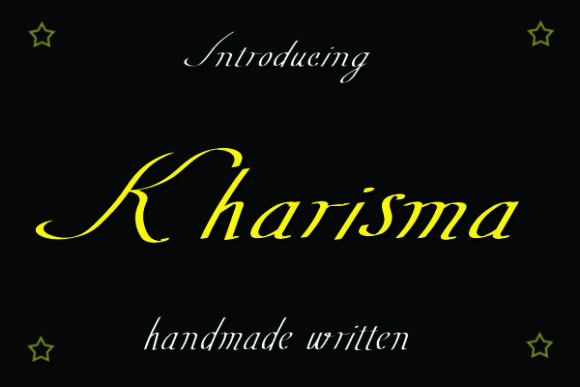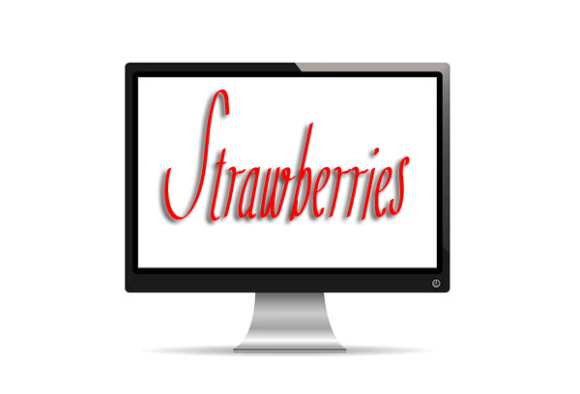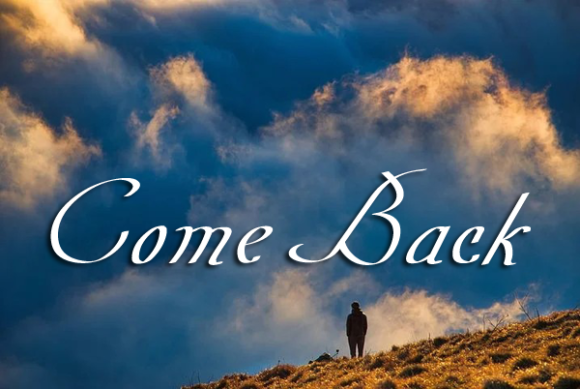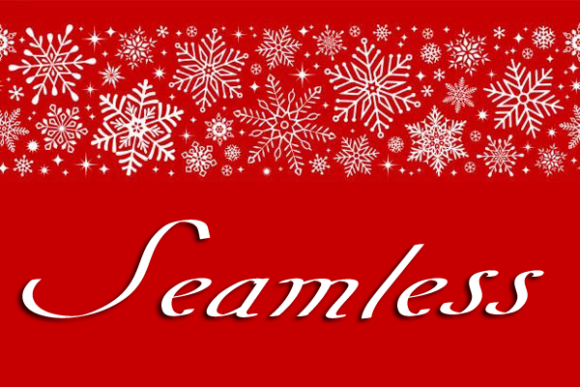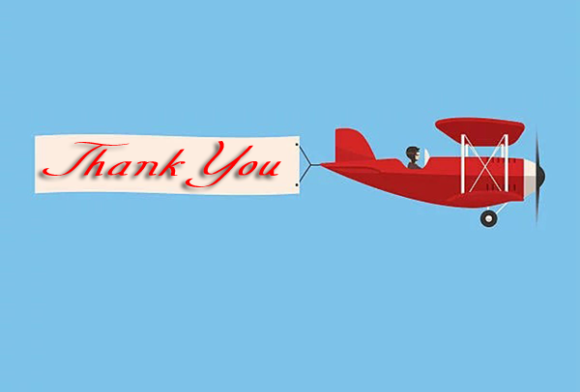
The Perfect Script for Your Next Design Masterpiece
As designers, we’ve all been there – staring at a blank canvas, brainstorming ideas, and desperately searching for the perfect font to bring our vision to life. And then, it happens – a spark of inspiration hits, and suddenly, your design is transformed into a work of art. For those magical moments, you need a font that’s just as enchanting, and that’s where the Kharisma Font comes in.
This sweet, whimsical, and flowing script font is designed to add a touch of luxury and sophistication to any design project. With characters that dance along the baseline, the Kharisma Font is the perfect choice for designers looking to create something truly special. Whether you’re working on a wedding invitation, a branding campaign, or a packaging design, this font is sure to leave a lasting impression.
Kharisma Font Key Features
- Unique Characteristics: The font features a unique blend of modern and traditional elements, making it suitable for a wide range of applications, from formal to informal.
Kharisma Font Review
I’ve been working with the Kharisma font for a while now, and I have to say it’s got some great qualities ✨. The first thing that caught my attention was its elegance and sophistication, perfect for creating a high-end feel in any design project. The font’s sleek lines and subtle curves give it a unique charm that’s hard to resist.
Here are some of the things that work well with Kharisma font:
- Perfect for luxury brands and high-end designs
- Elegant and sophisticated feel
- Good legibility, even at small font sizes
- Supports a wide range of languages
However, there are some limitations to consider ⚠️. For one, the font may be a bit too ornate for some designs, which can make it harder to read. Additionally, the font doesn’t come with a bold weight, which can limit its use in certain situations.
Overall, I think the Kharisma font is a great addition to any designer’s toolkit. While it may not be perfect, its unique charm and elegance make it a great choice for the right projects. With a bit of caution and careful use, you can create some truly stunning designs with this font.
Tips for Getting the Most Out of Kharisma Font
Use the Kharisma font to add a touch of elegance and sophistication to your designs.
Combine the font with bold and italic styles to create visual interest.
Use the Kharisma font for:
Corporate branding and marketing materials.
Special occasion cards and gift tags.